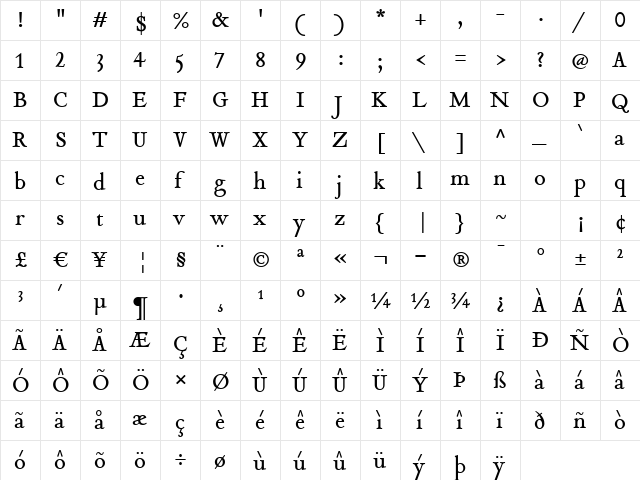
Tribute Roman
Design Context for Tribute Typeface
Tribute is a composed and adaptable typeface that performs quietly and consistently across a wide range of design contexts.
Pro Tip: Pair Tribute with a font of contrasting weight or personality to build a more expressive typographic hierarchy.